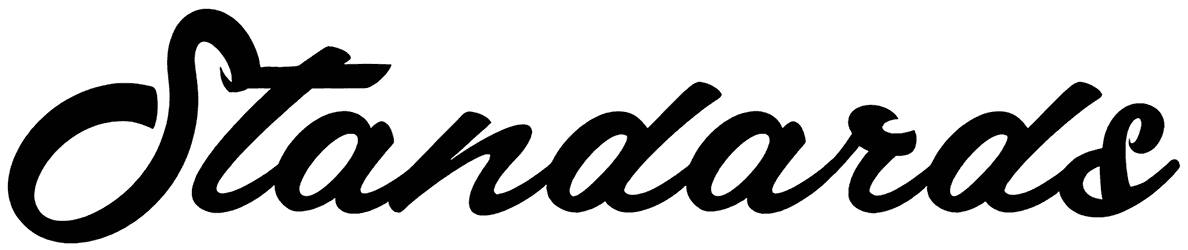
Standards Font
If you’re looking for a way to give your invitations, films, tattoos, and love letters an extra special something, look no further than the beautiful cursive font Standards. This beautiful script font is hard to read at…
If you’re looking for a way to give your invitations, films, tattoos, and love letters an extra special something, look no further than the beautiful cursive font Standards.
This beautiful script font is hard to read at first glance, and it only has the numbers 0 and 1, but it is easy to use and will make any creative project look great. To astound your audience with little effort, simply try it out.